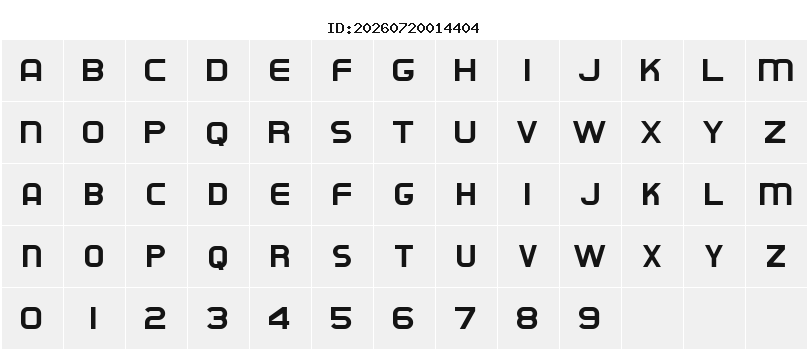
EmpireBuilder Preview
• Font Name: EmpireBuilder
• Full Font Name: EmpireBuilder
• PostScript Name: EmpireBuilder
• Character Count: 77
About EmpireBuilder.ttf
EmpireBuilder.ttf is a modern, elegant sans-serif font designed for ultimate readability and visual harmony. Perfect for branding, headlines, web design, and print materials.